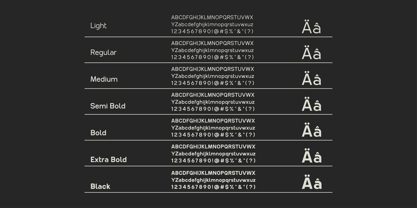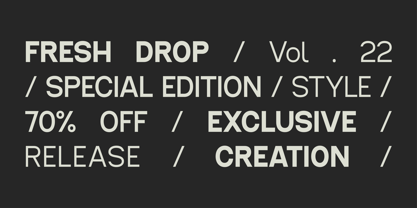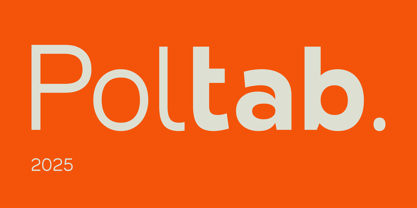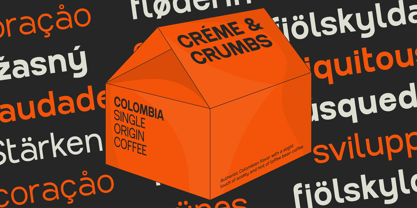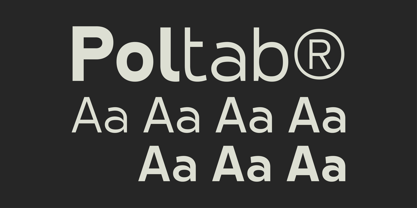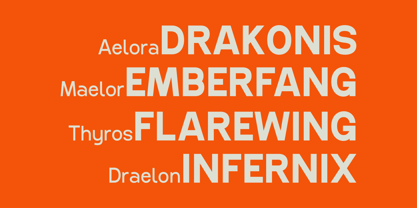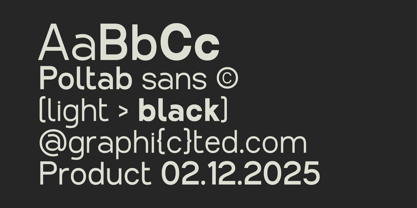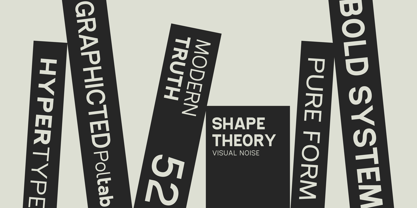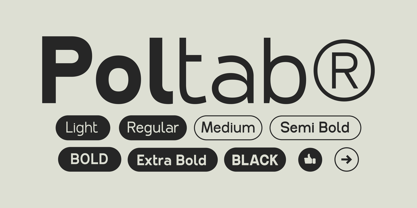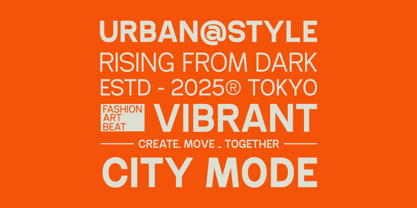
Poltab
by Glyphminds Studios
The Poltab Font Family was designed by Baliya Ibnu Bi Malkan and published by Glyphminds Studios. Poltab contains 7 styles and family package options. More about this family
Introducing Poltab – a brand new sans-serif typeface where geometric precision meets a friendly, human touch. Born in 2025, Poltab is designed for clarity and character, featuring perfectly circular shapes, a clean single-story ‘a’, and unique details that give it a warm and approachable personality.
Its exceptional legibility and minimalist aesthetic make it incredibly versatile.
Poltab is the perfect choice for forward-thinking brands, shining in everything from logo design and website headlines to UI/UX interfaces and social media content. Elevate your projects with a font that is both timelessly clean and distinctively modern.
Designers: Baliya Ibnu Bi Malkan
Foundry: Glyphminds Studios